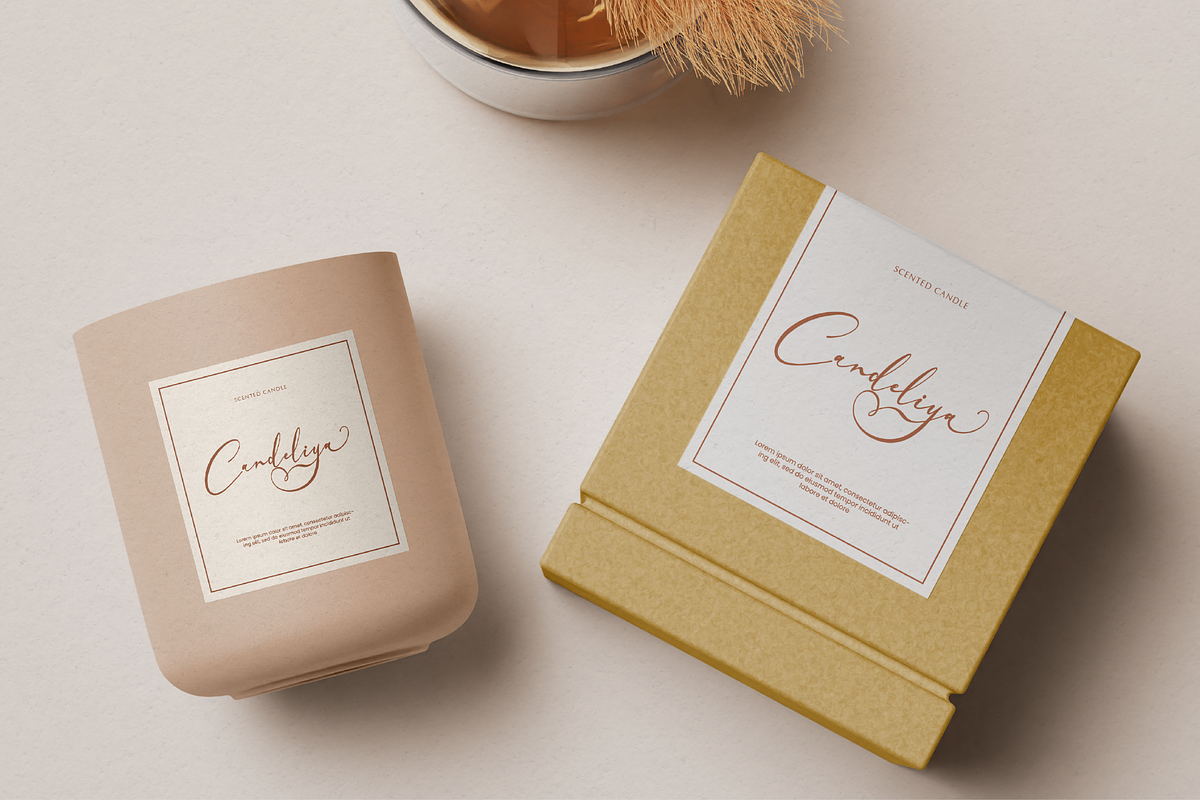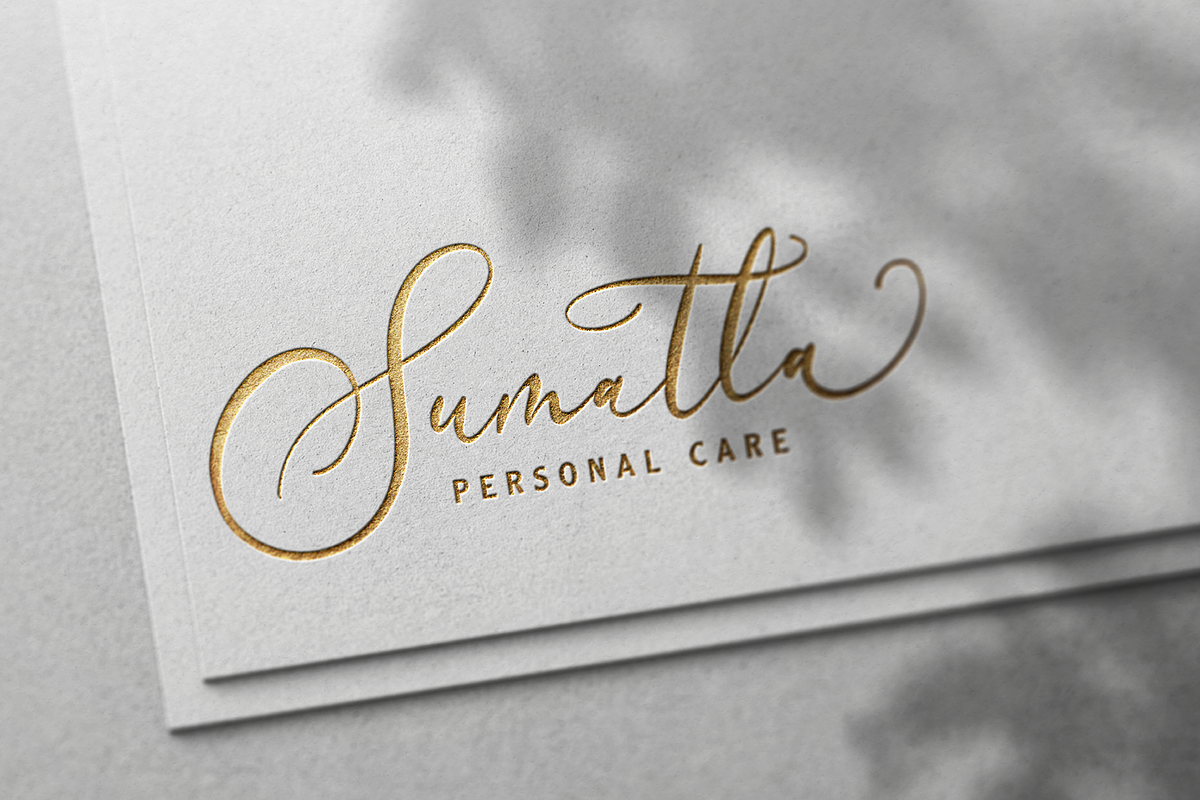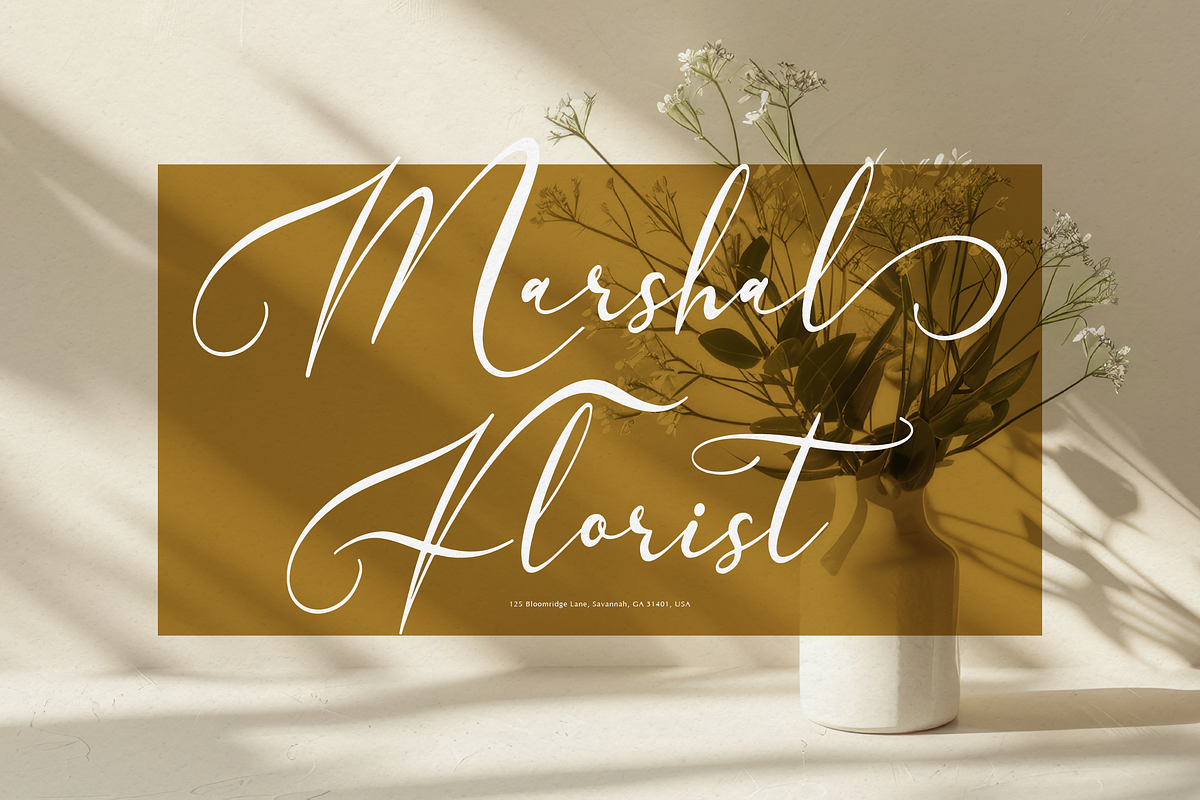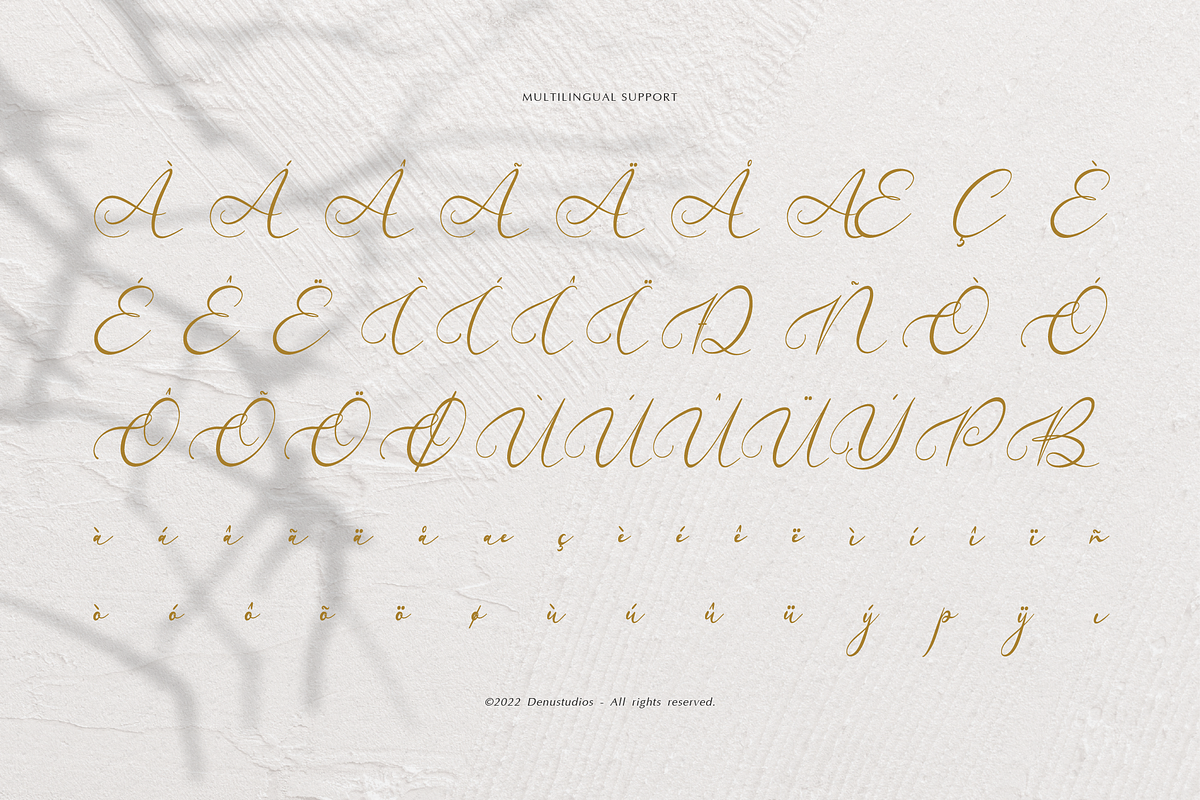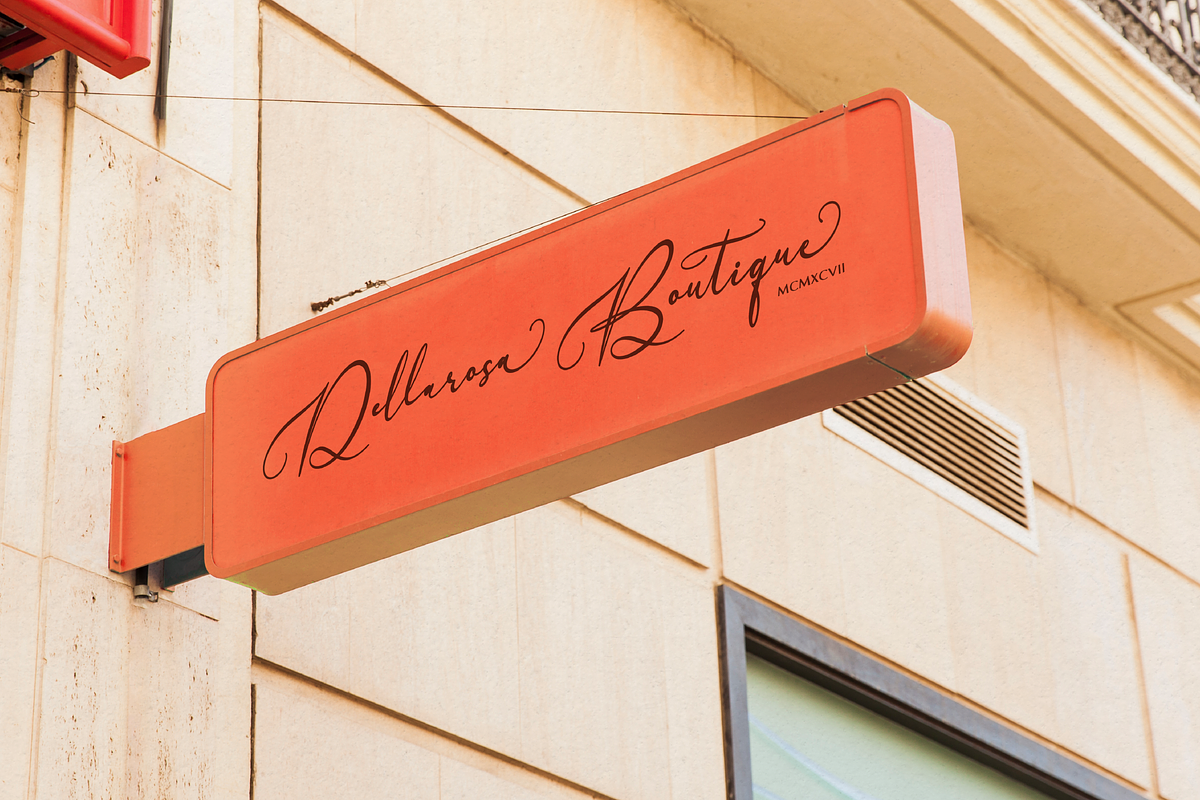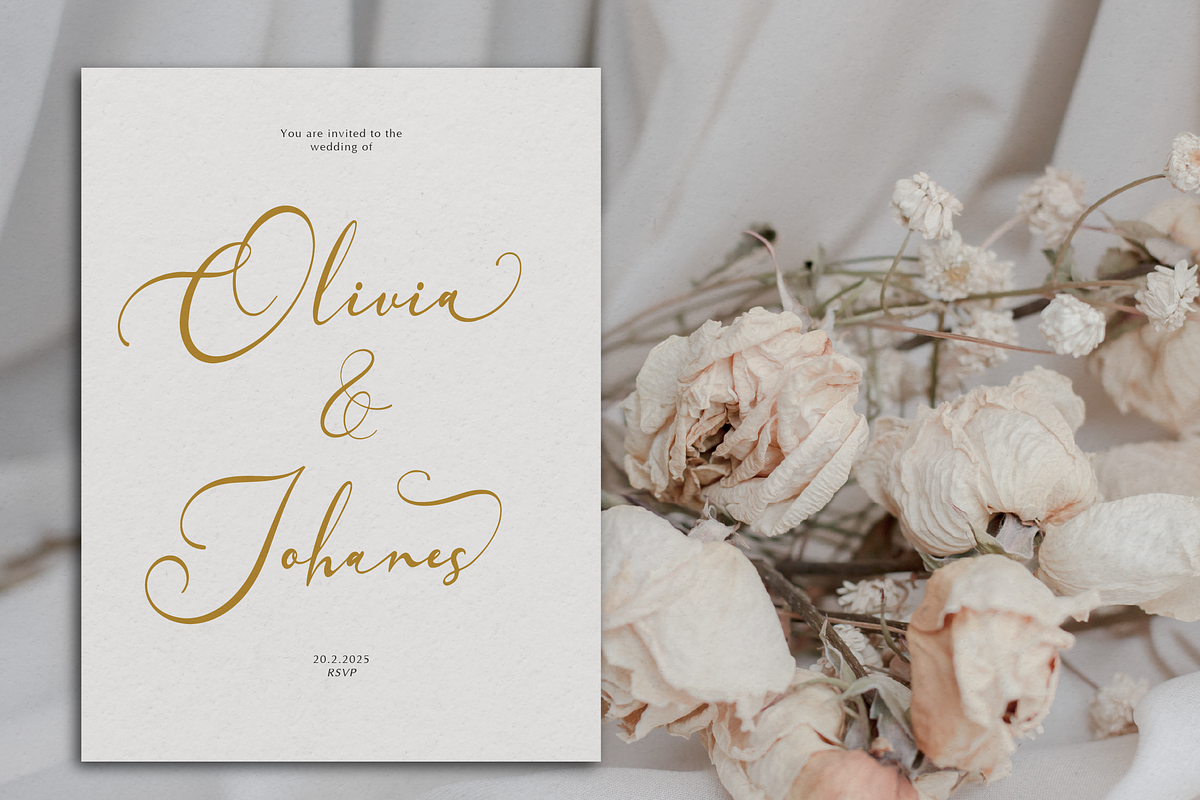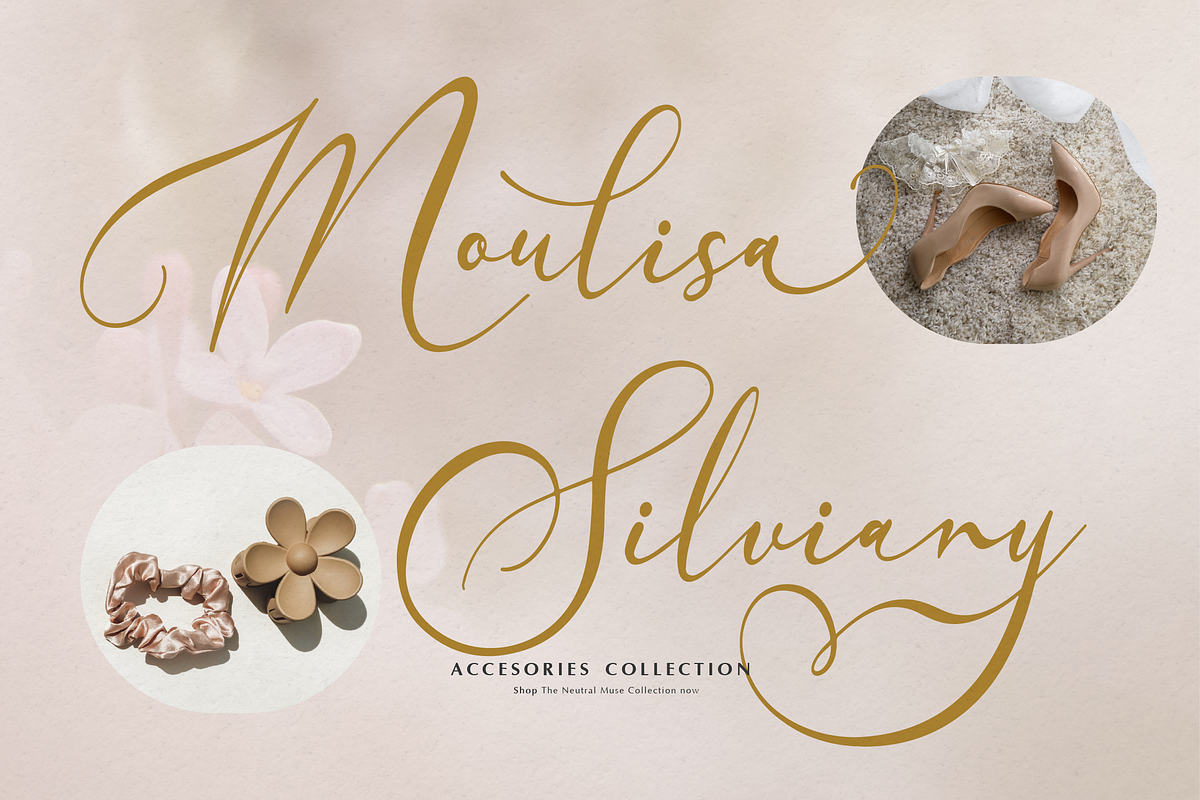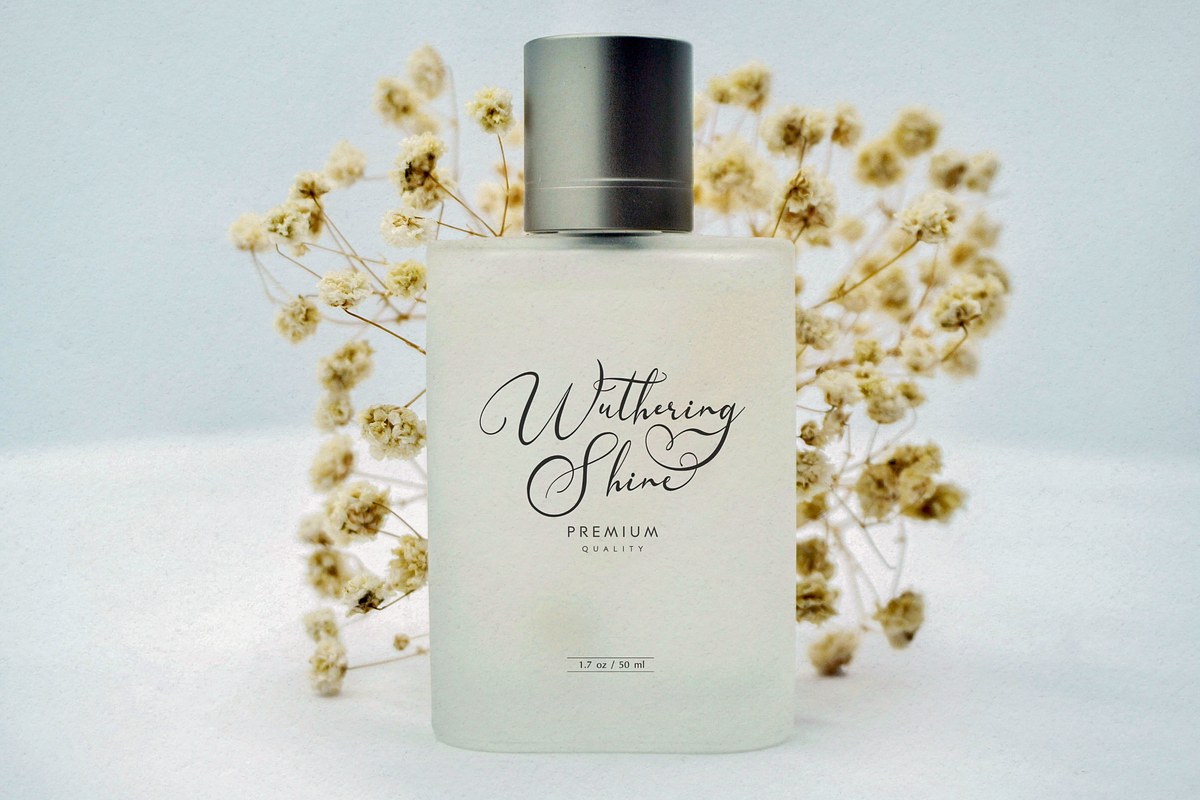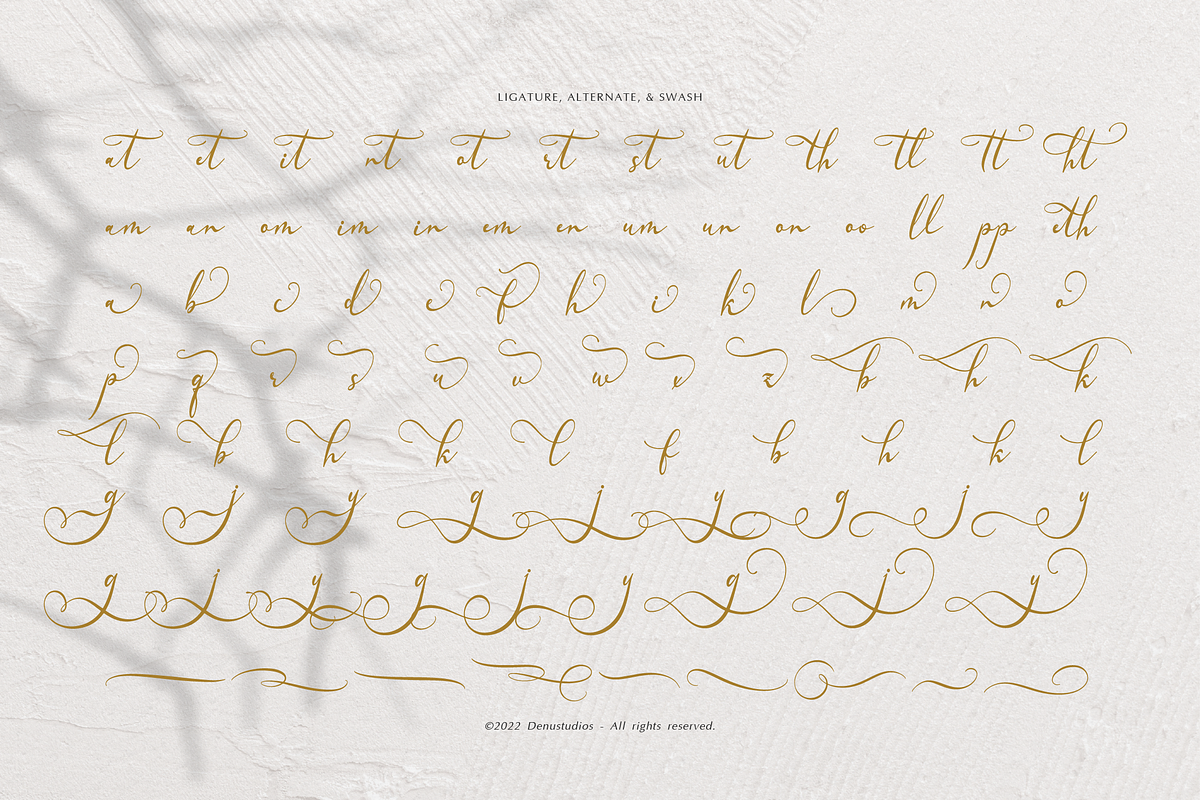
Velocity Romantica Calligraphy Font
Velocity Romantica | Modern Calligraphy, from Denustudios, suitable for any projects such as: logos, branding projects, homeware designs, product packaging, mugs, quotes, posters, shopping bags, t-shirts, book covers, name card, invitation cards, greeting cards, label, photography, watermark, special events, and all your other lovely projects that need a Modern Calligraphy taste.